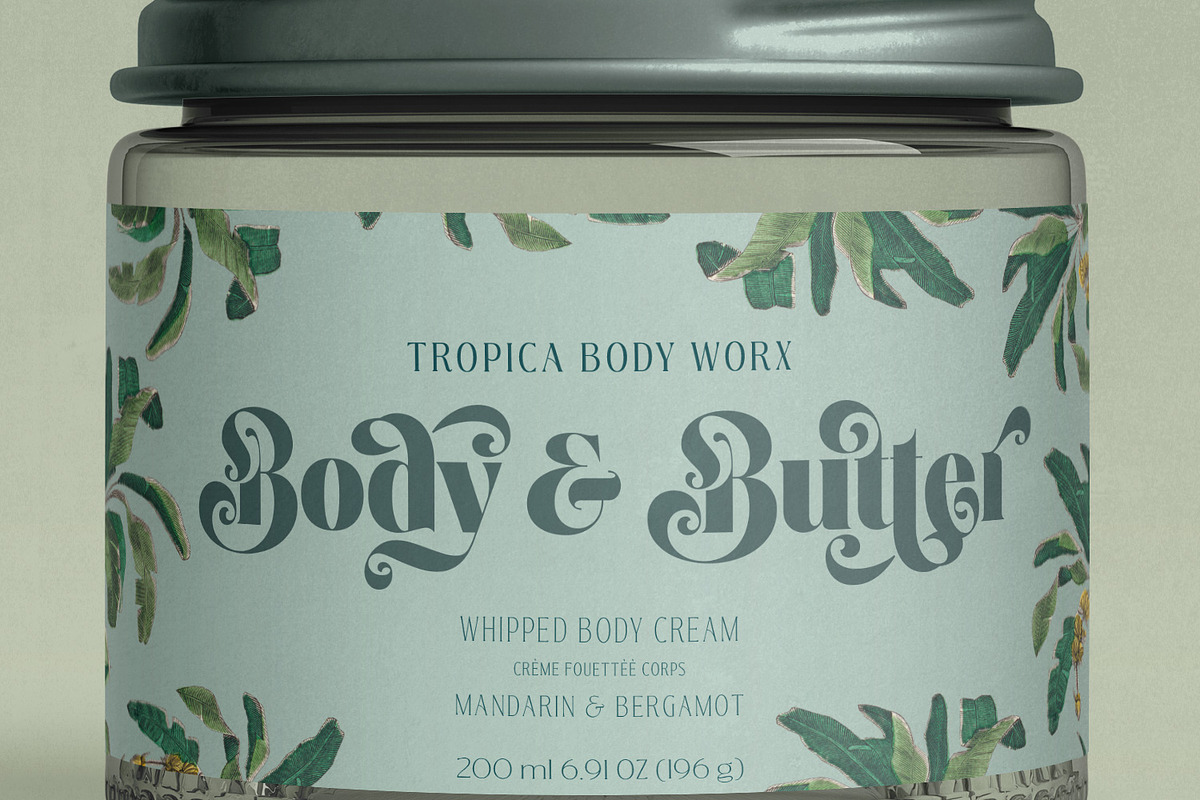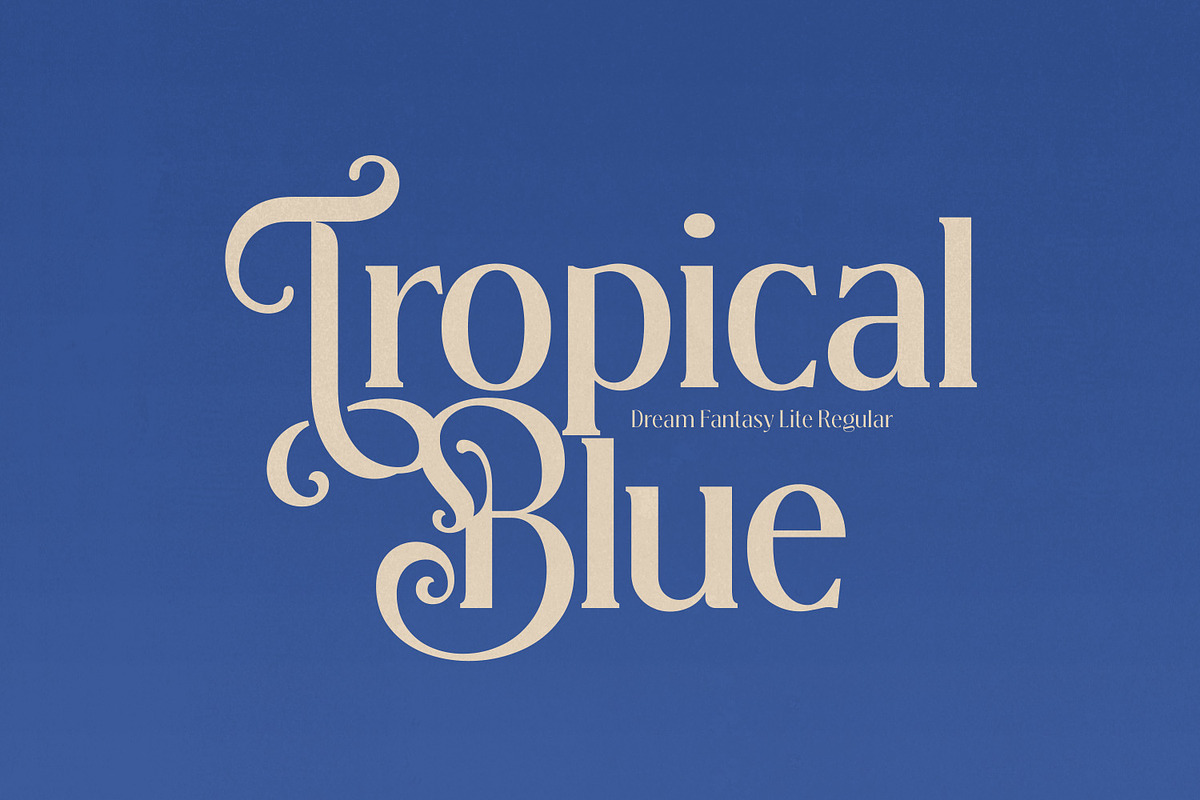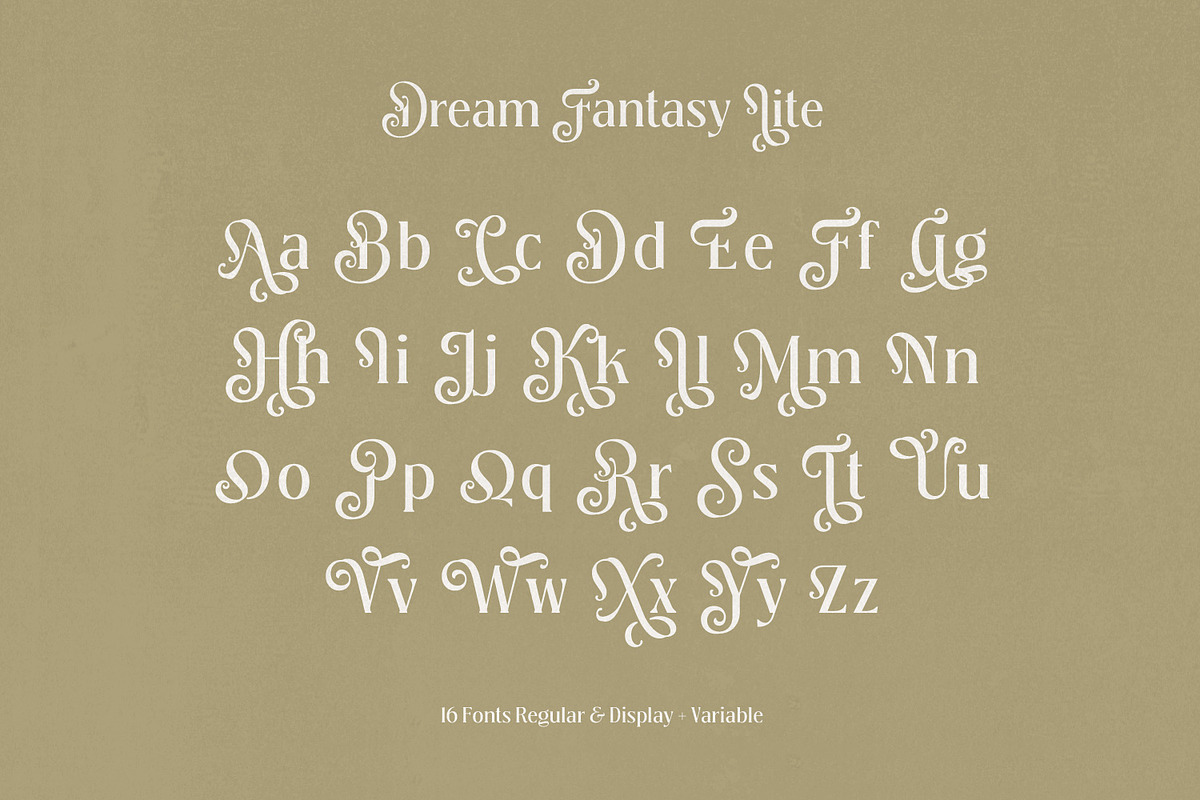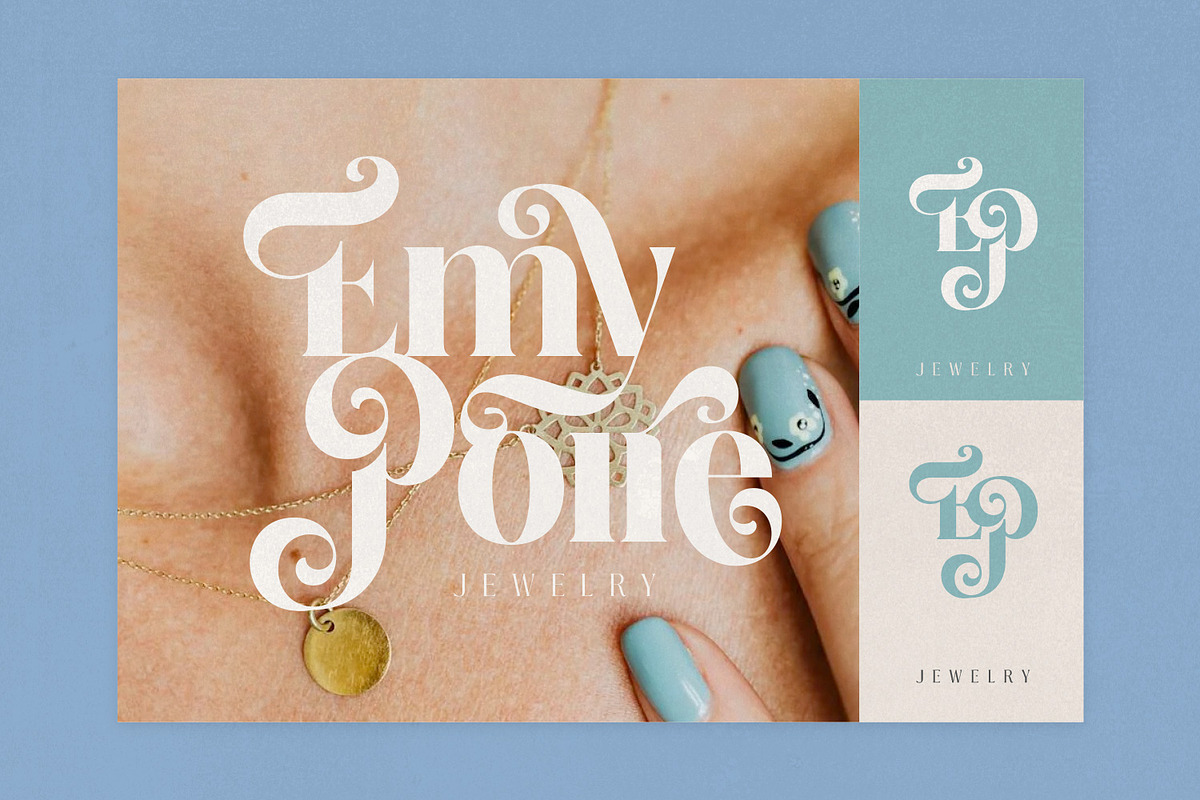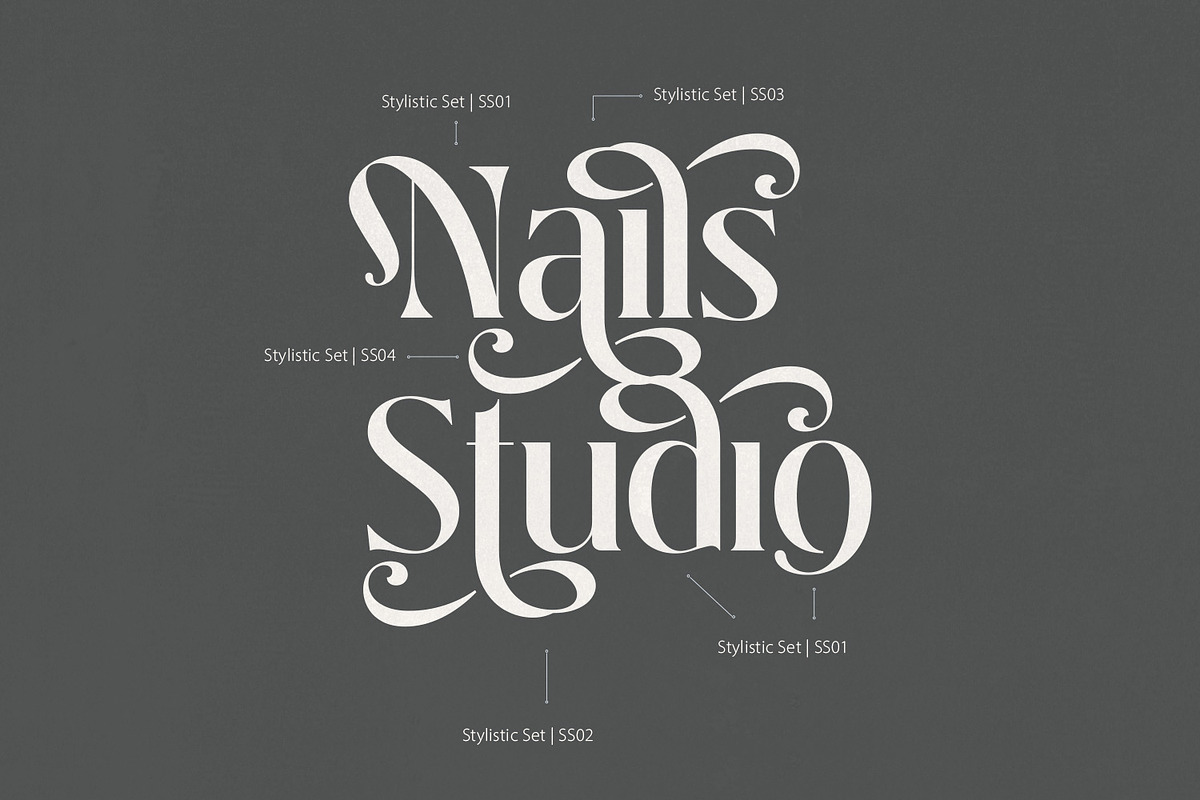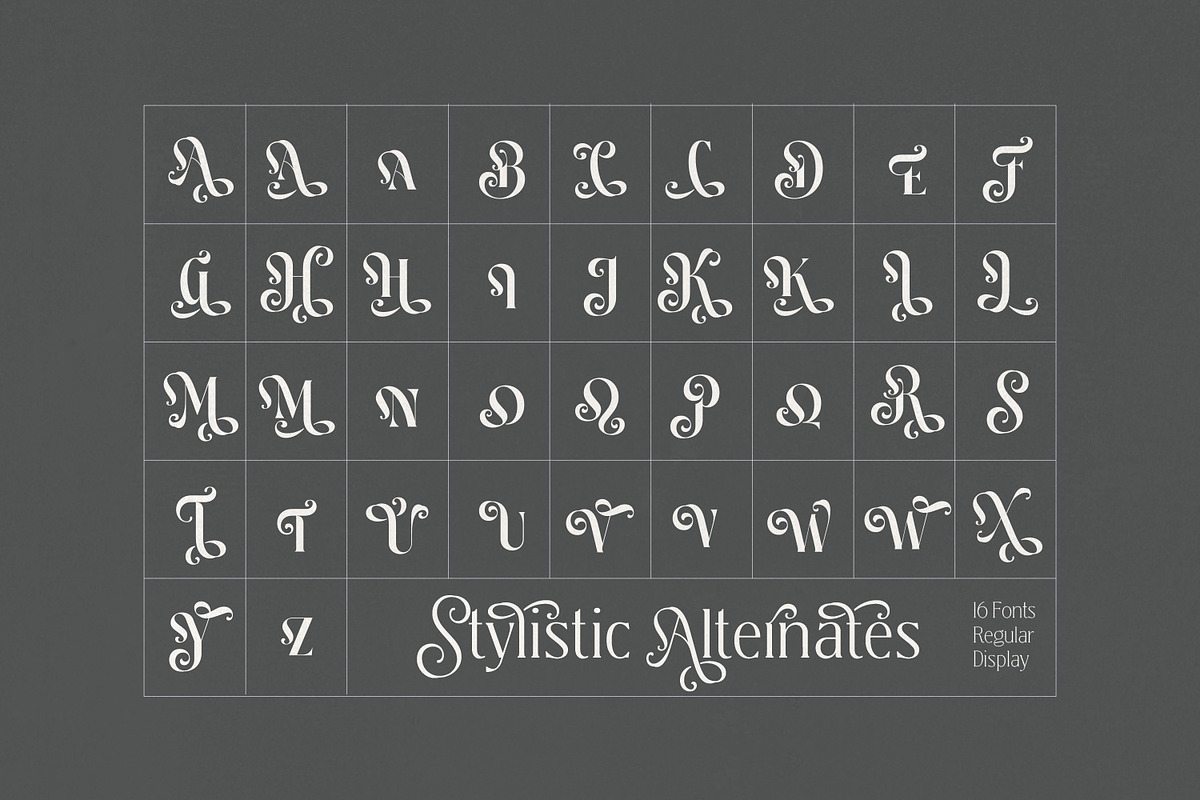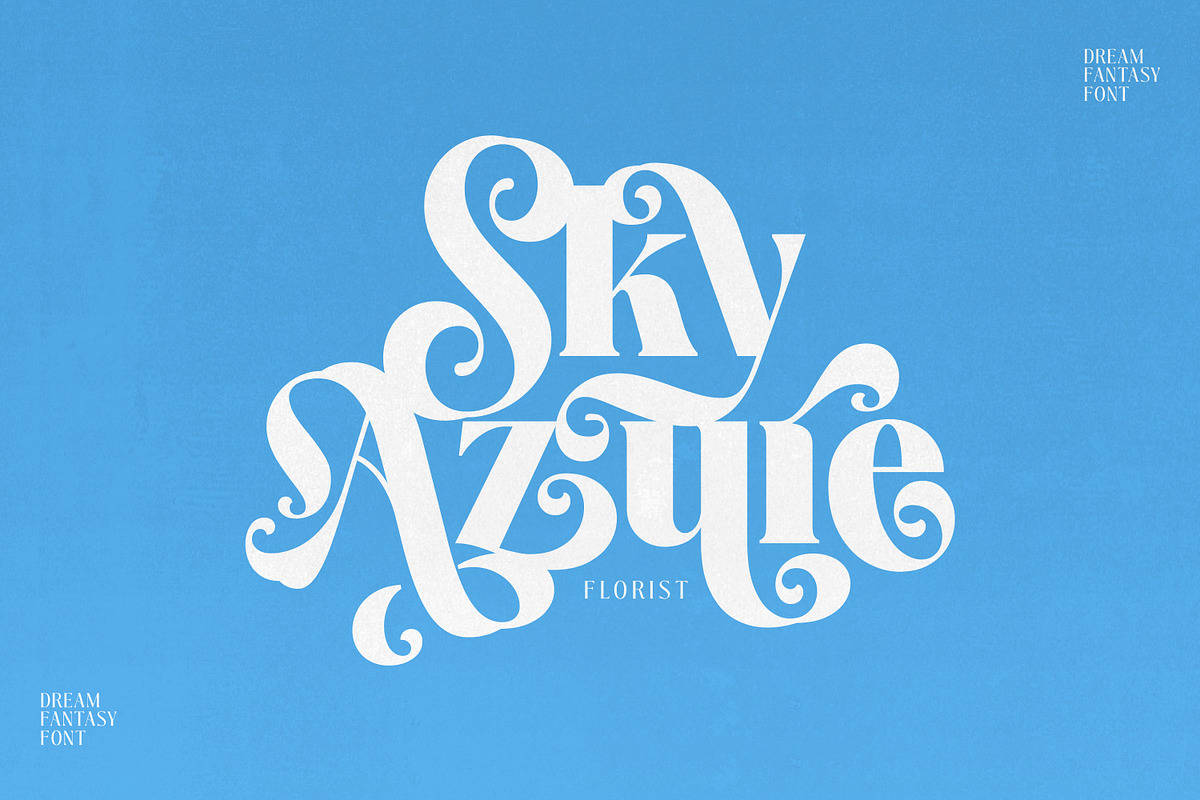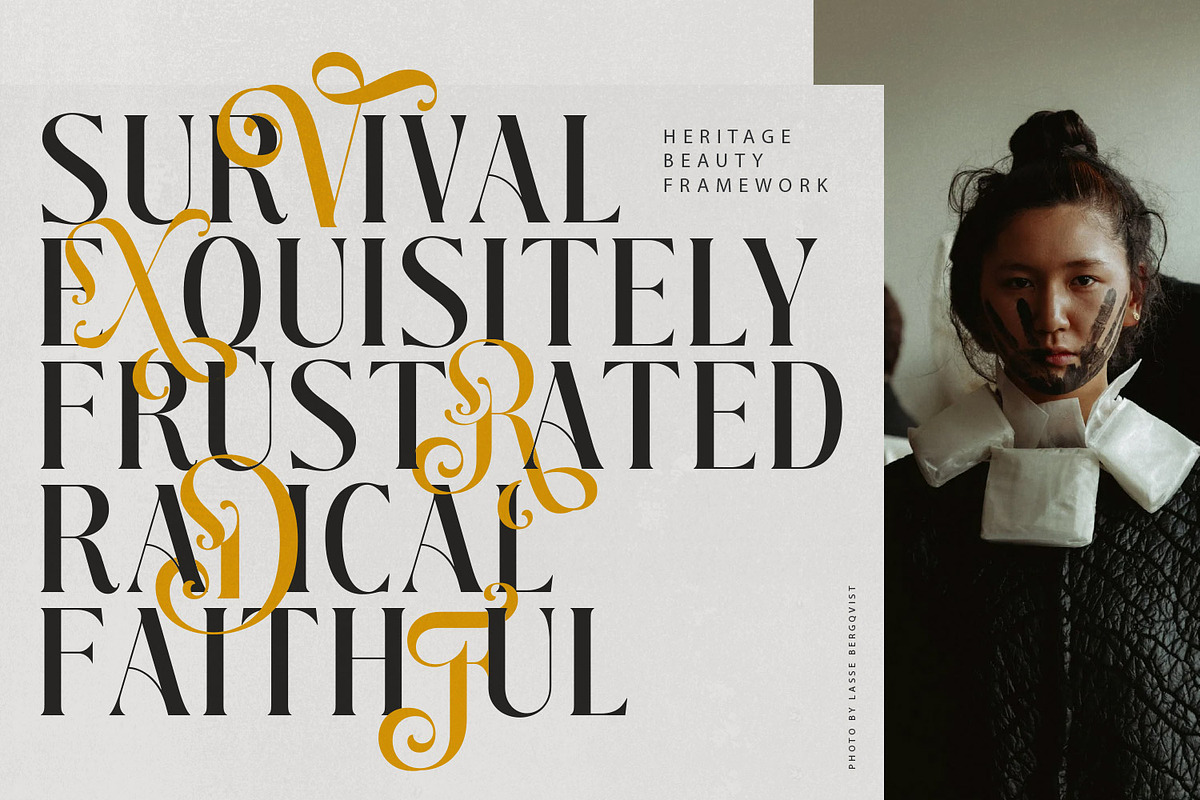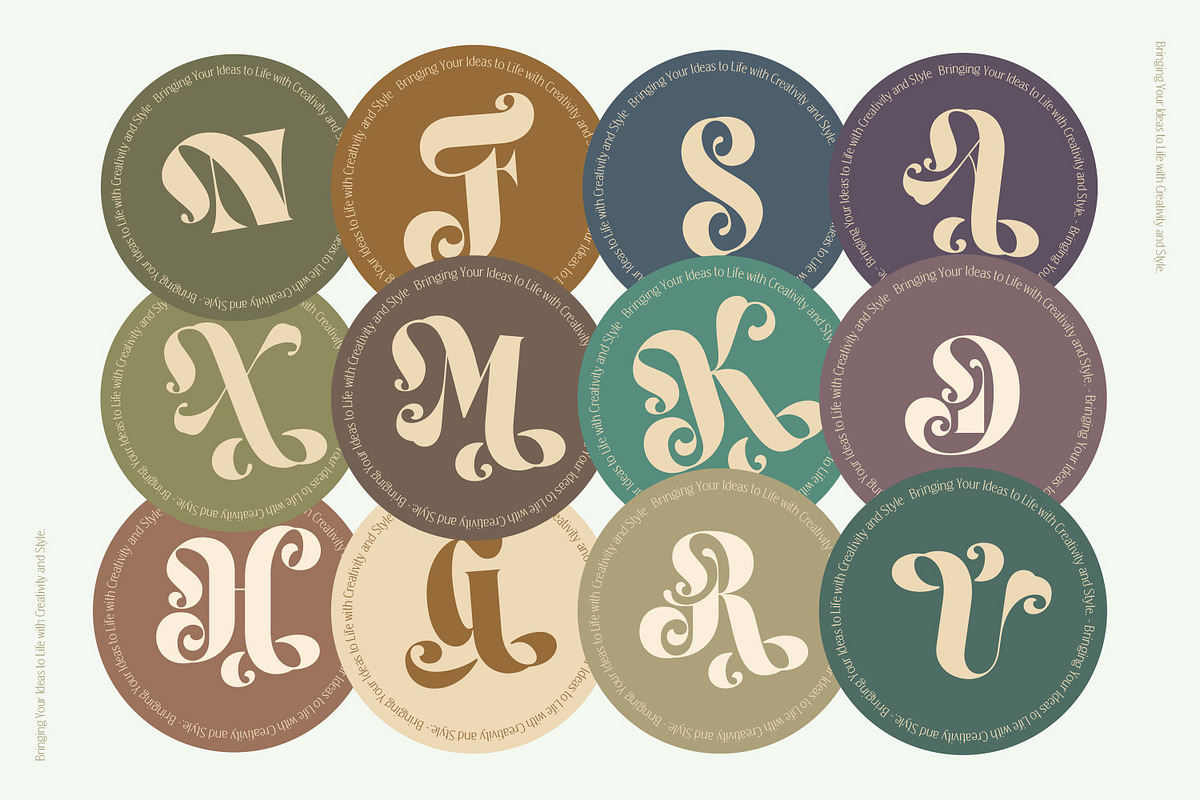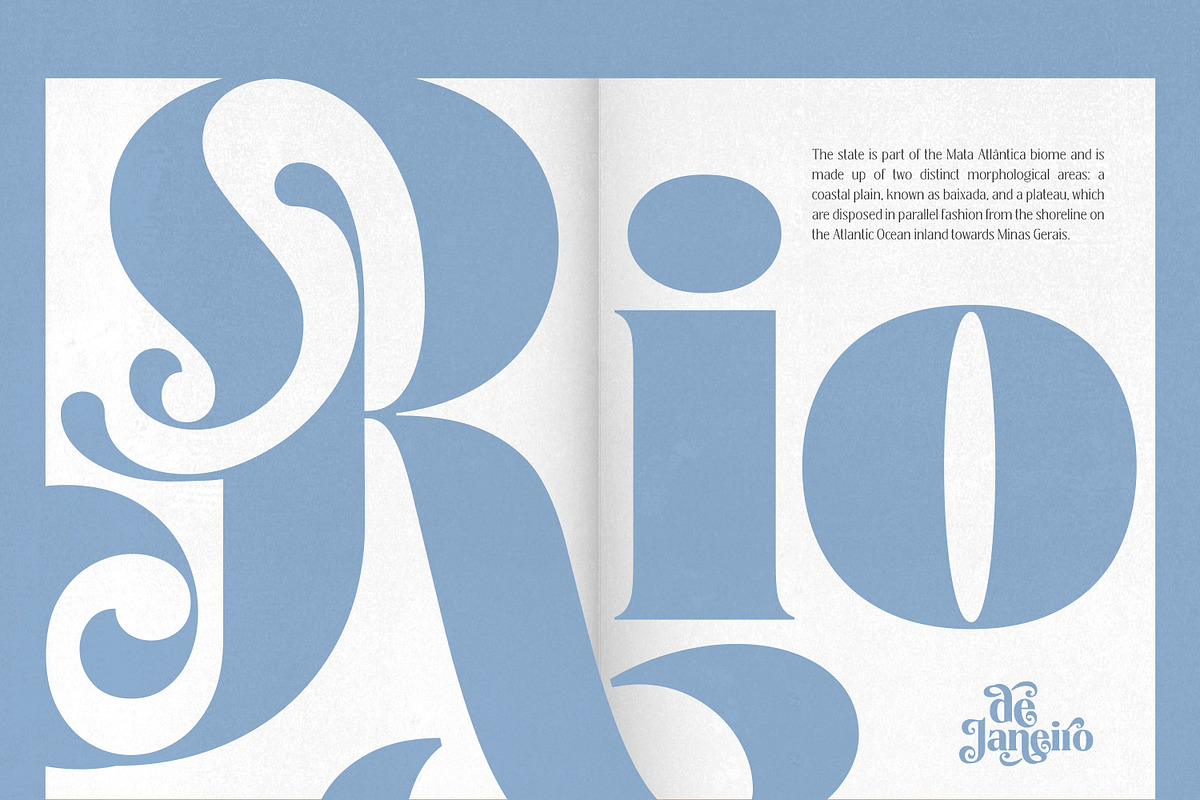
Dream Fantasy - Decorative Font
Introducing Dream Fantasy – a unique decorative serif font!
Inspired by the graceful curves of beautiful flowers in an enchanted forest, this font brings a touch of beauty and creativity to your designs.
With a variety of style alternatives, you can mix and match to create unique typography, stunning headlines, eye-catching logos, or beautiful monograms.
Dream Fantasy comes in two styles—Regular and Display—each with eight different weights. Plus, this font includes variable formats for even more weight flexibility!
Dream Fantasy also comes in a Lite version, featuring beautifully crafted capital letters—perfect for your website titles and header text.